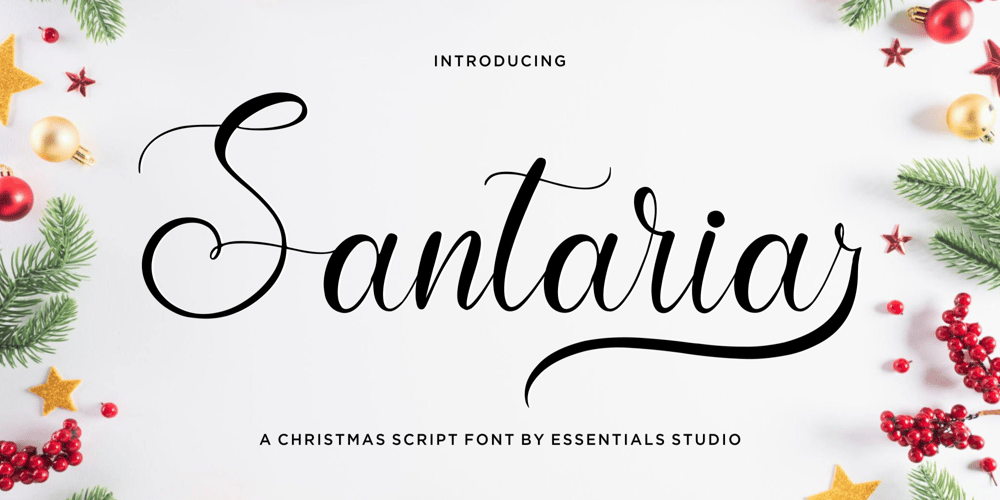
Santaria Font Family was designed by Bagus Panji Asmoro and published by Essentials Studio. Santaria contains 1 styles and family package options. Introducing by Essentials StudioProudly Present, Santaria Is a Modern Christmas Script FontSantaria is perfect for product packaging, branding project, megazine, social media, wedding, or just used to express words above the background.